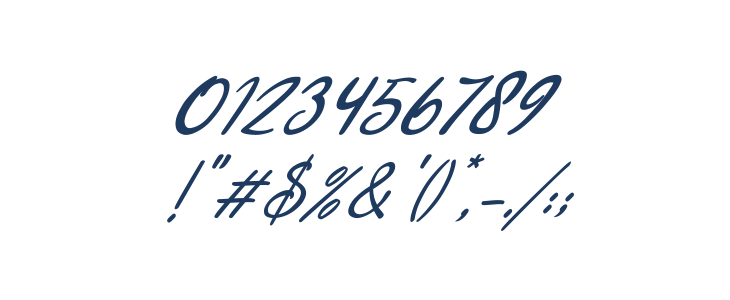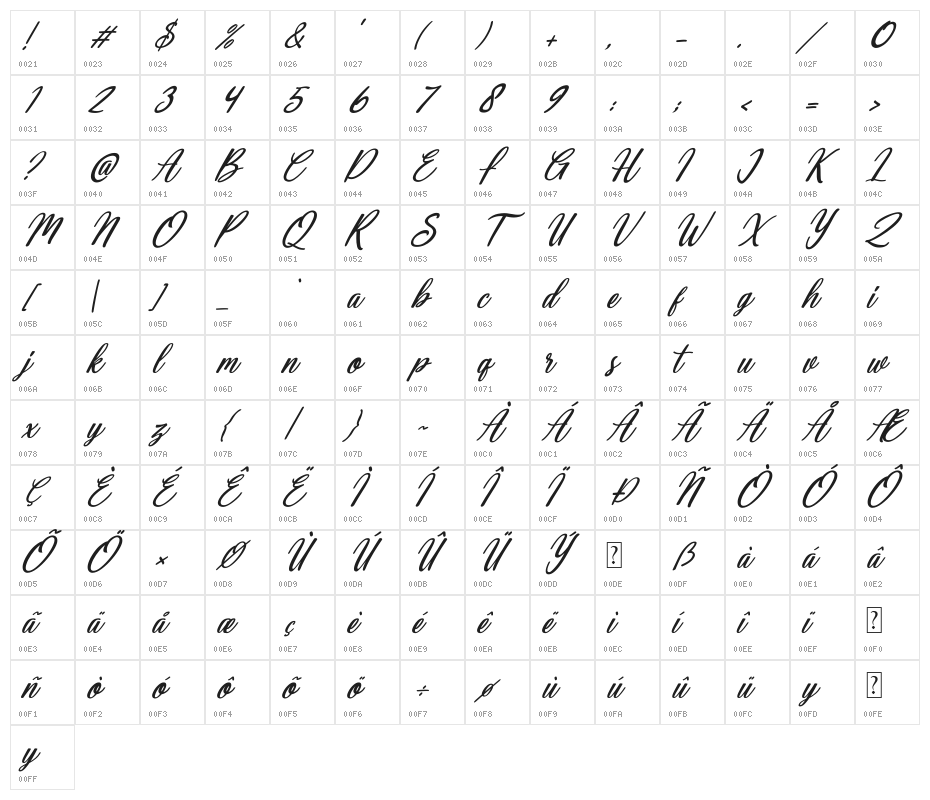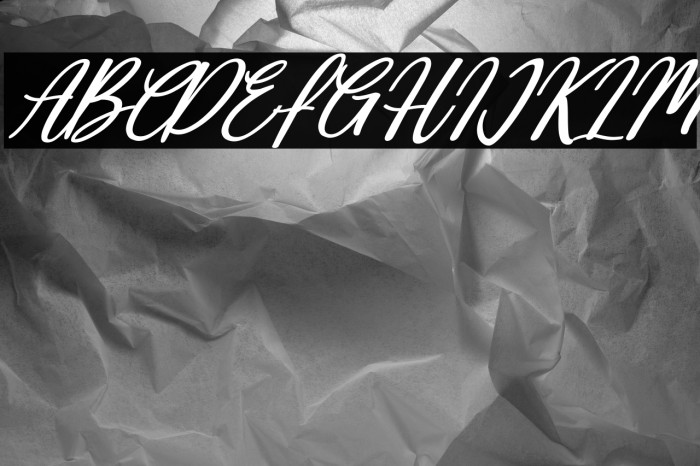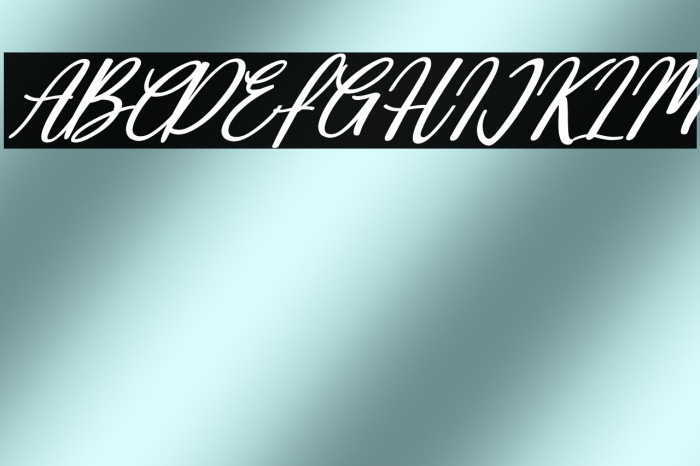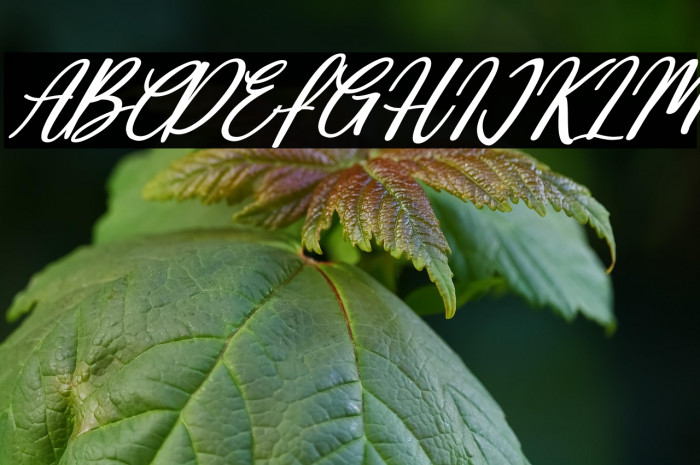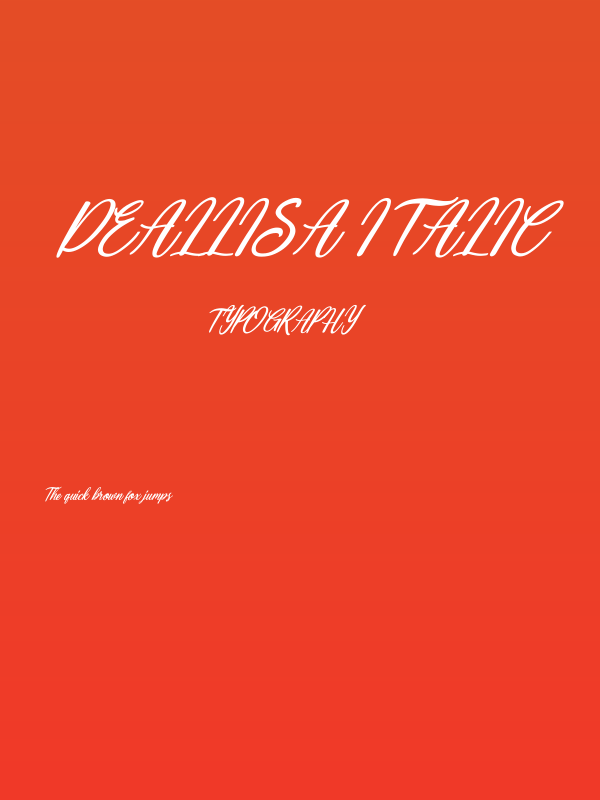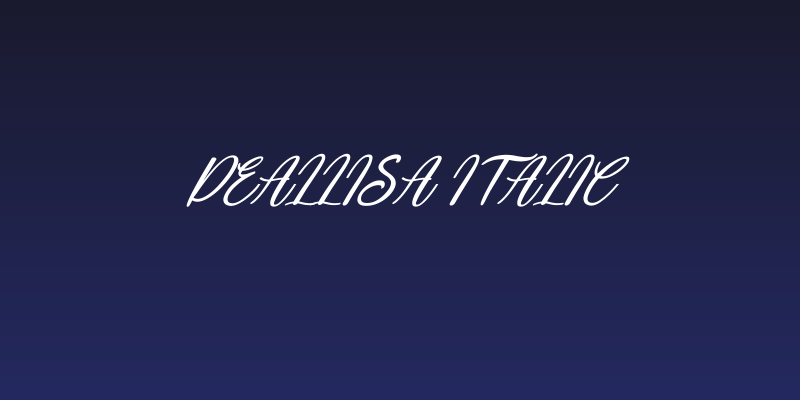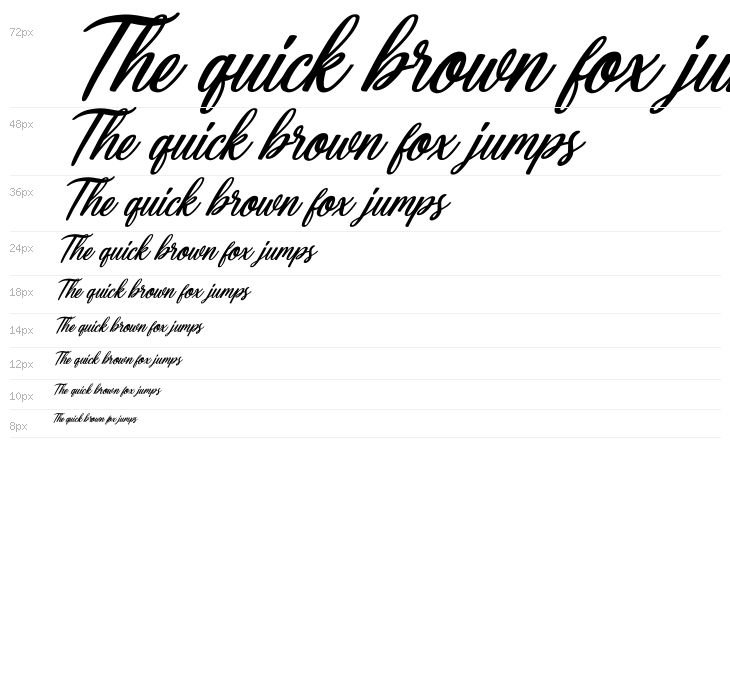
Deallisa Italic Font
Deallisa Italic Description
This font features a dynamic and flowing script style, characterized by its elegant, cursive letterforms. The strokes are smooth and connected, creating a sense of fluidity and motion. The uppercase letters are bold and prominent, while the lowercase letters maintain a consistent rhythm and balance. The numerals and special characters are designed to complement the overall aesthetic, with a touch of sophistication. The italic slant adds a graceful touch, enhancing the font's expressive nature.
| Proposed Projects | Ideal for wedding invitations, elegant branding, personal signatures, and artistic projects. |